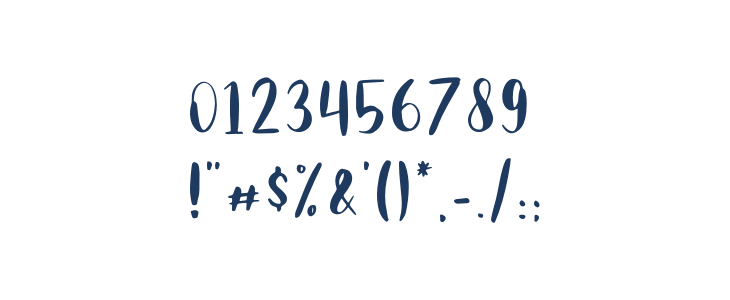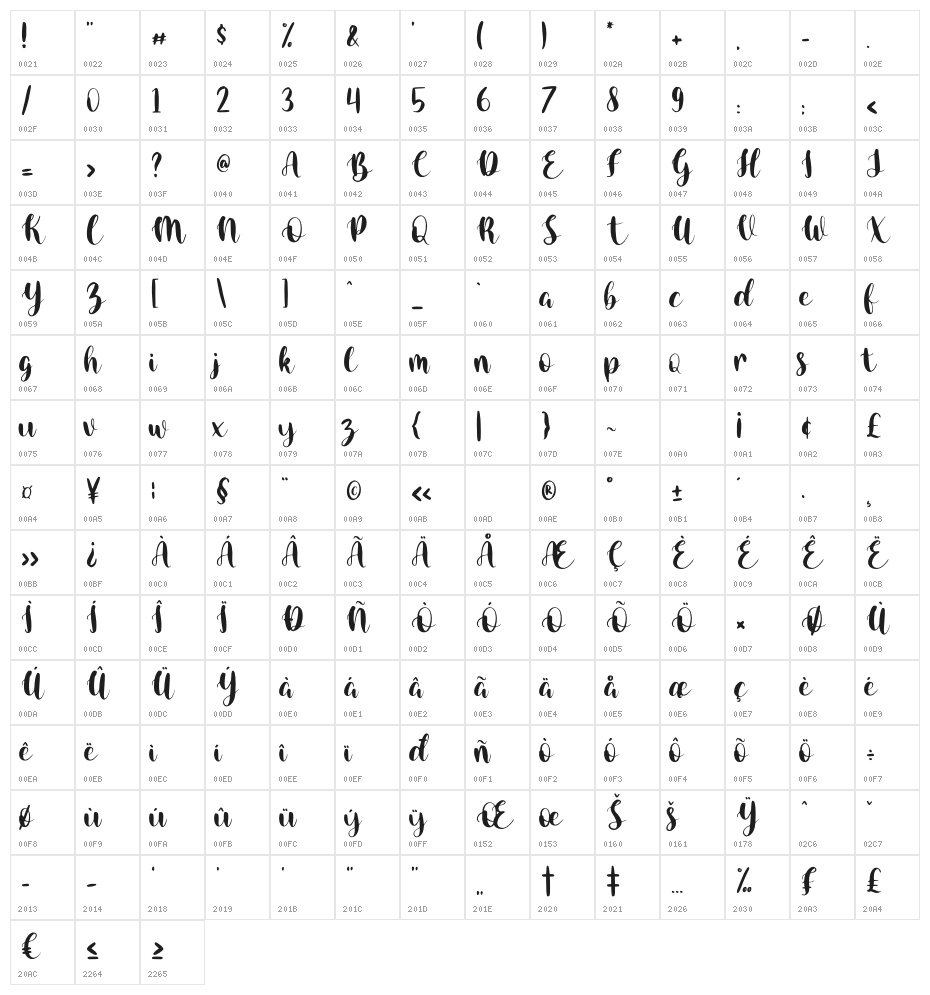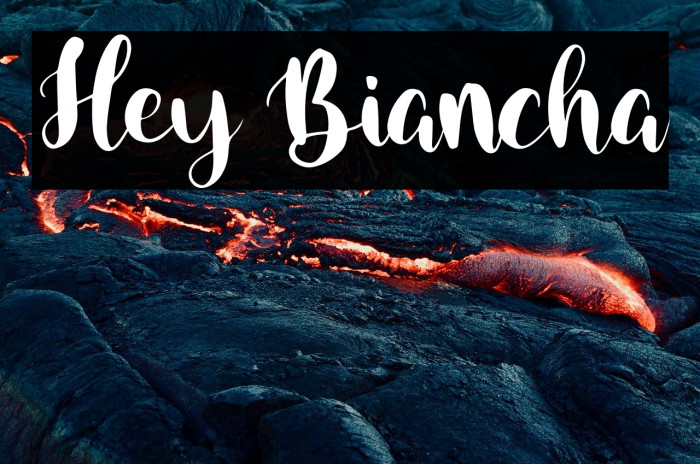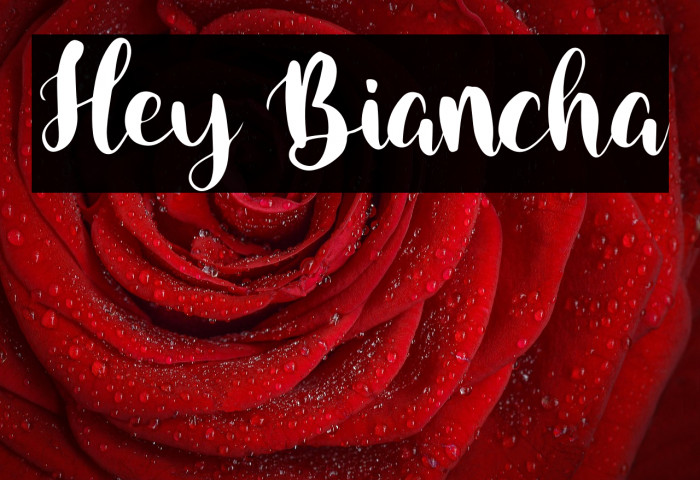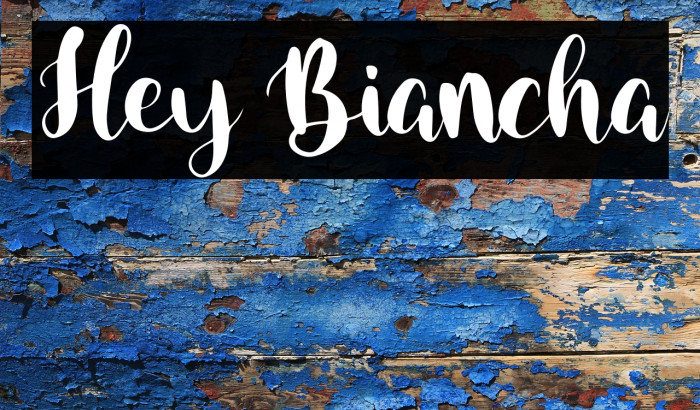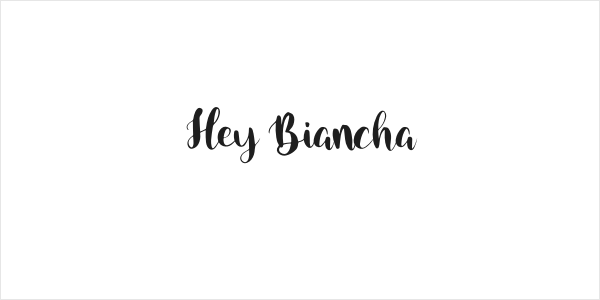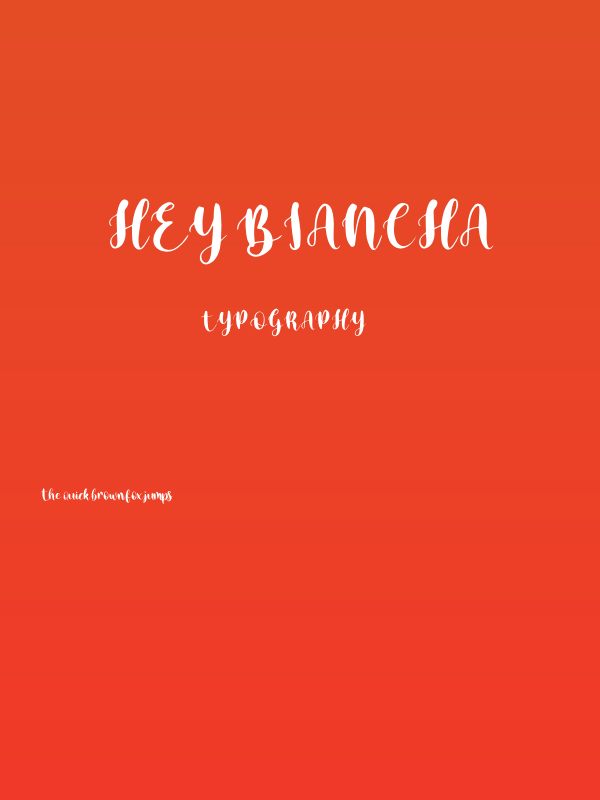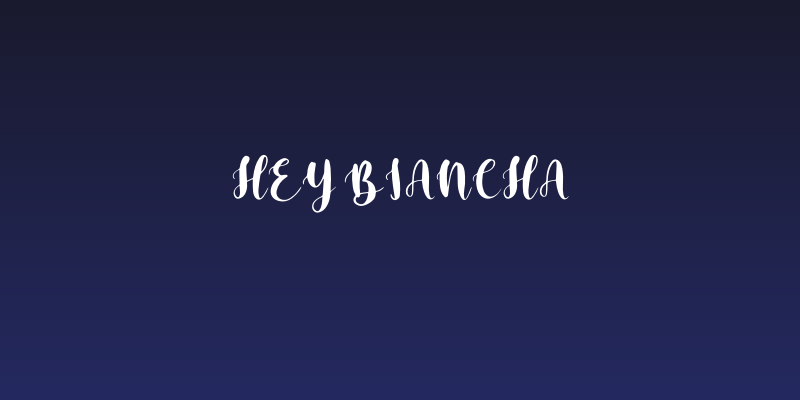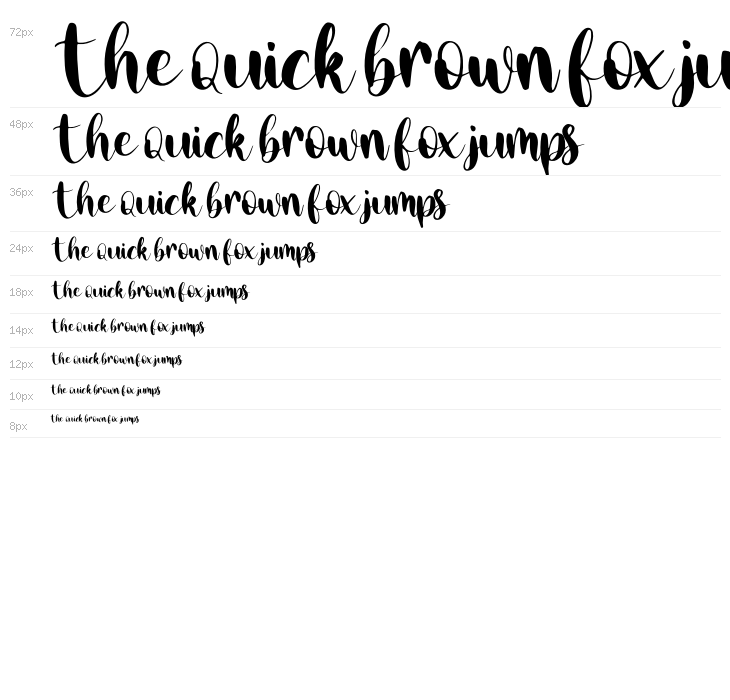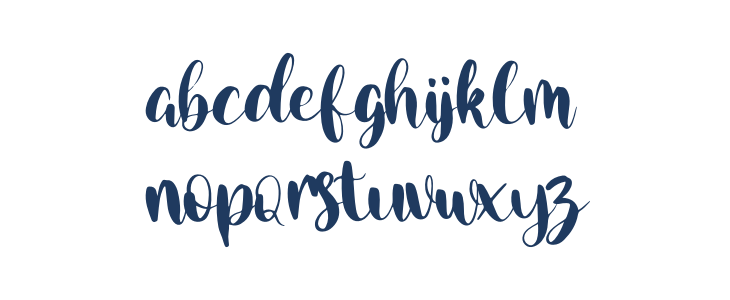
Hey Biancha Font
Hey Biancha Description
This font features a lively and expressive script style, characterized by its fluid, cursive strokes and playful loops. The letters are interconnected, creating a sense of movement and elegance. The uppercase letters are bold and prominent, while the lowercase letters maintain a consistent flow, enhancing readability. The numerals and special characters are designed to match the overall aesthetic, with a touch of whimsy. This font is perfect for adding a personal and artistic touch to any project, making it ideal for creative and decorative purposes.
| Proposed Projects | Ideal for wedding invitations, greeting cards, branding, and artistic projects. |